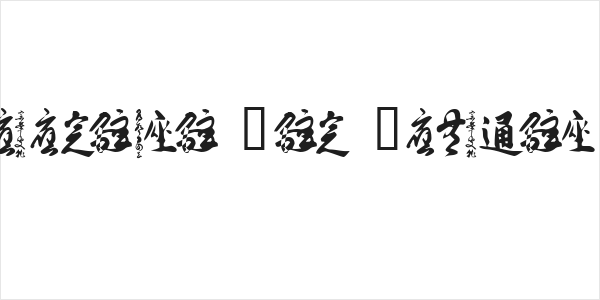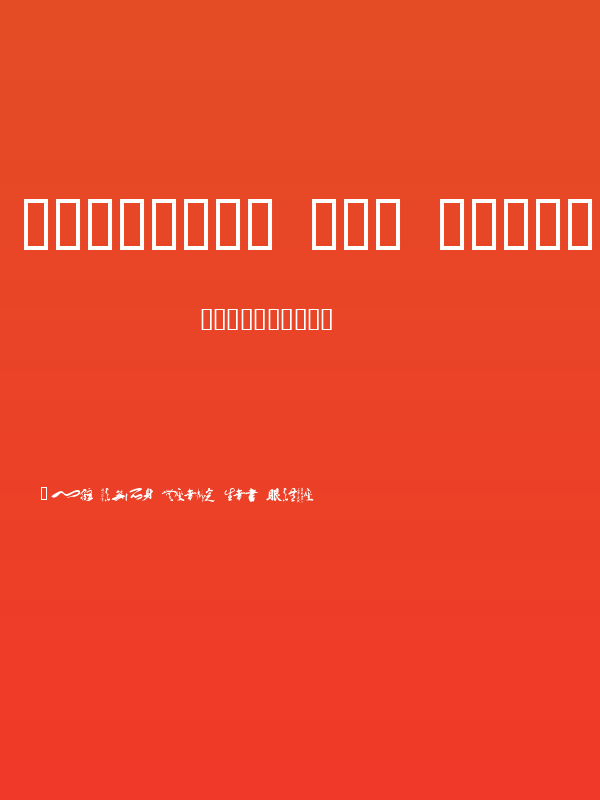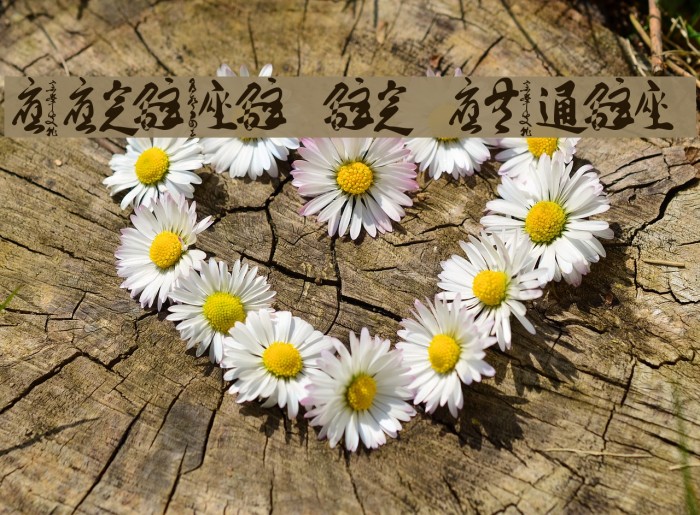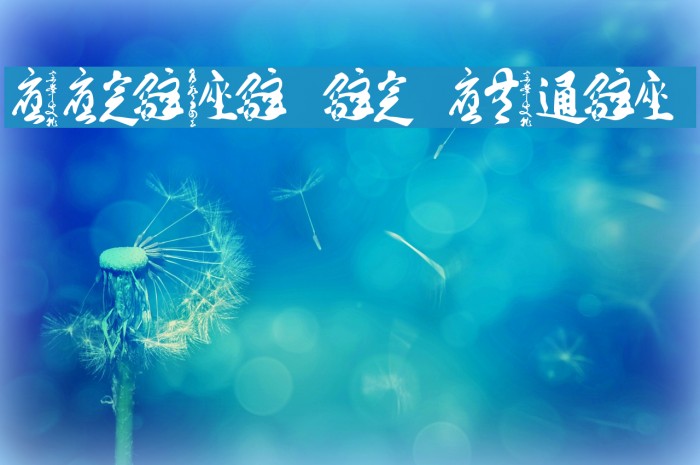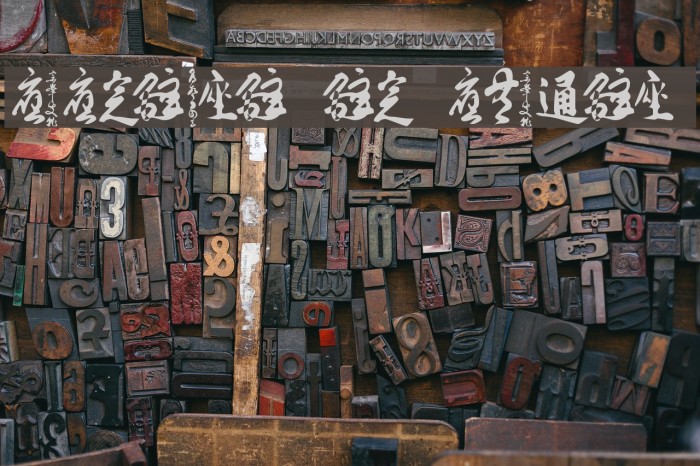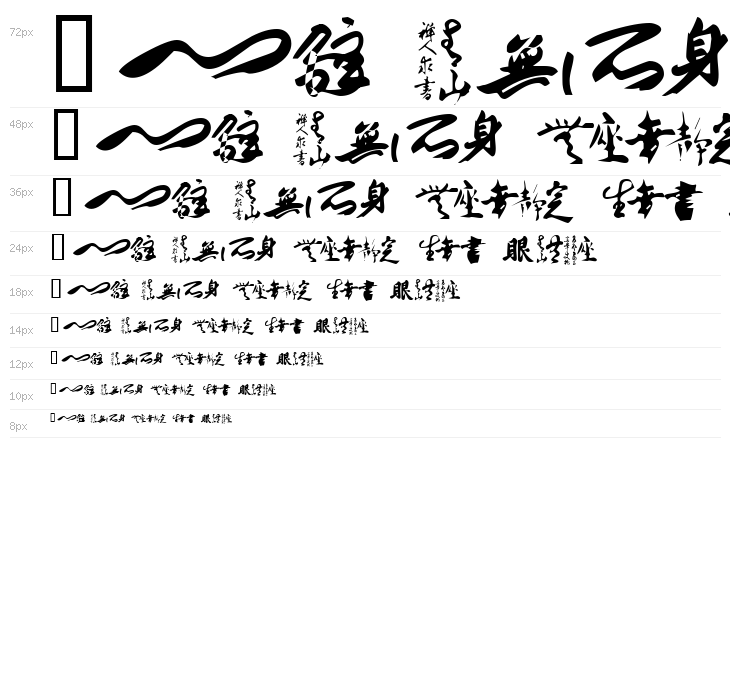
Japanese Zen Sampler 1 Font
✎ Calligraphic
| Catégories | Calligraphic |
| Style général | Traditional, Artistic |
| Cas d'utilisation | Decorative, Artistic projects, Cultural designs |
| Projets proposés | Ideal for cultural projects, artistic designs, branding, invitations, and decorative elements that require an authentic Japanese aesthetic. |